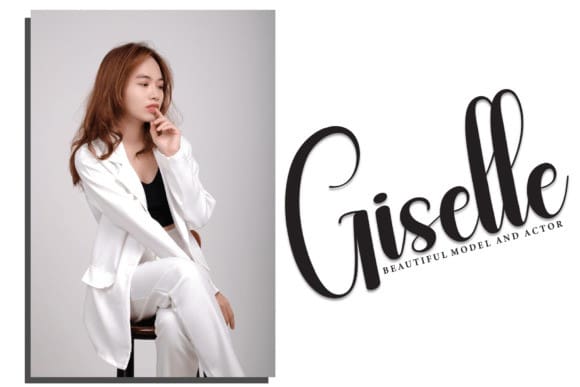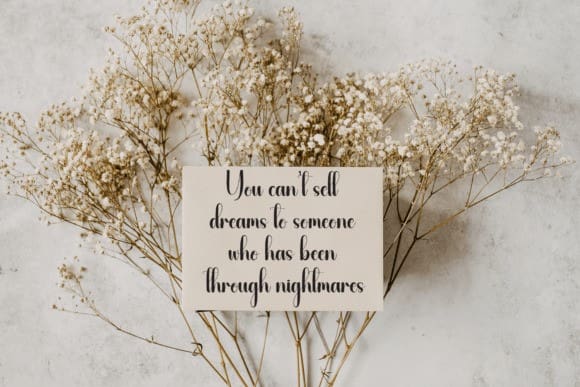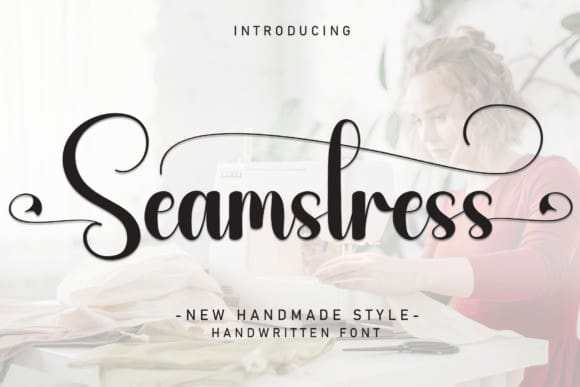
Seamstress Script Font
Seamstress Script Font is a sweet and friendly handwritten font. Fresh and casual, this font is ideal for writing wedding invitations, cards, or any other design that might need a lovely touch!